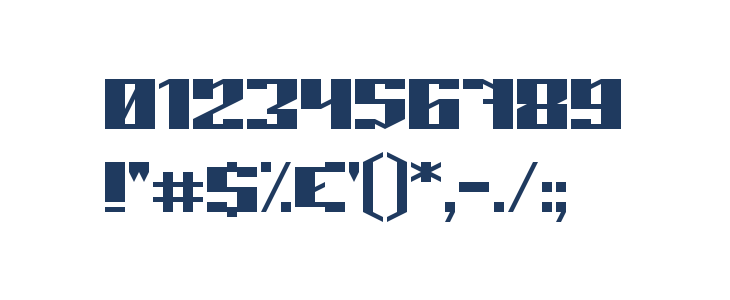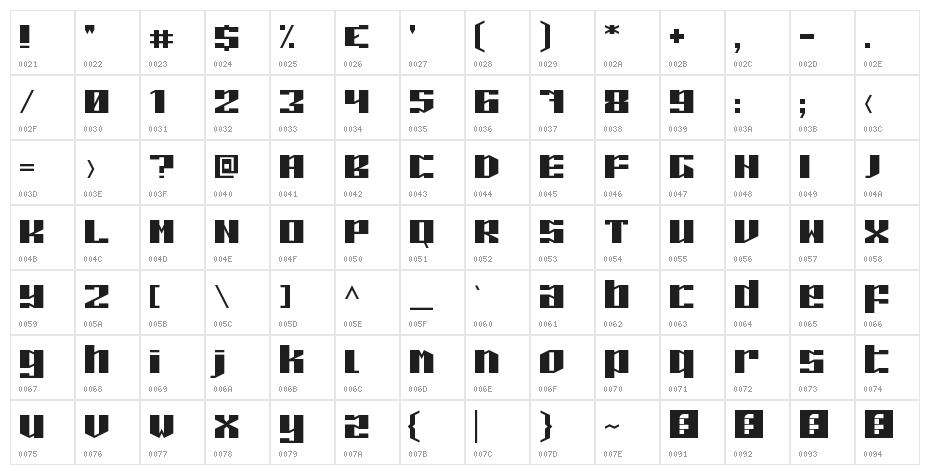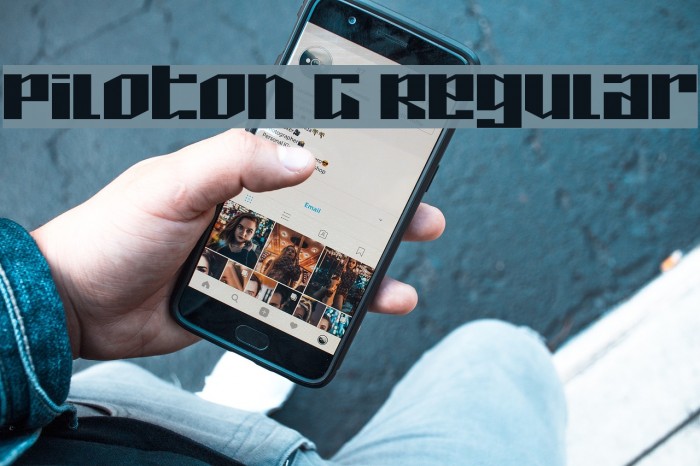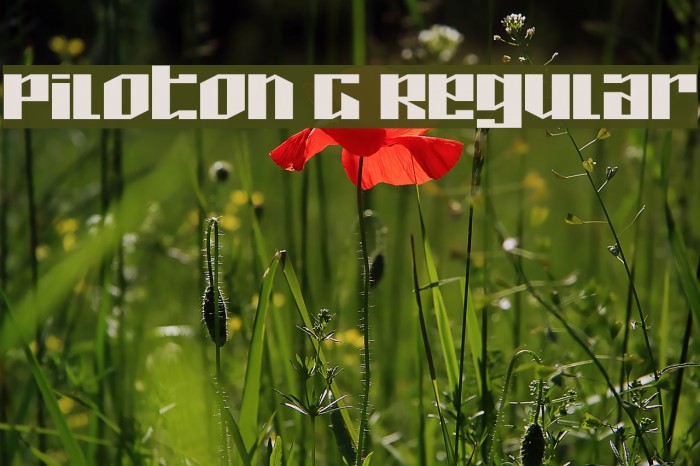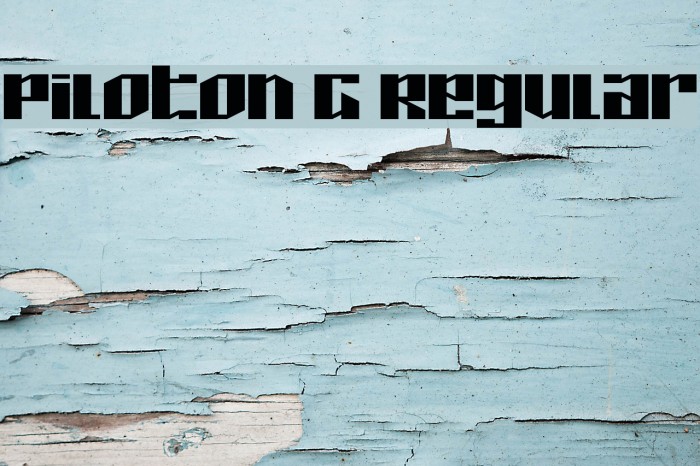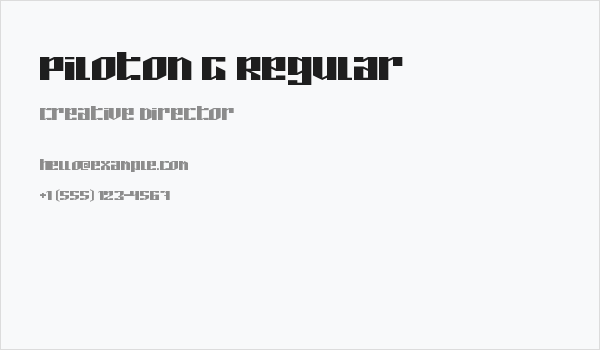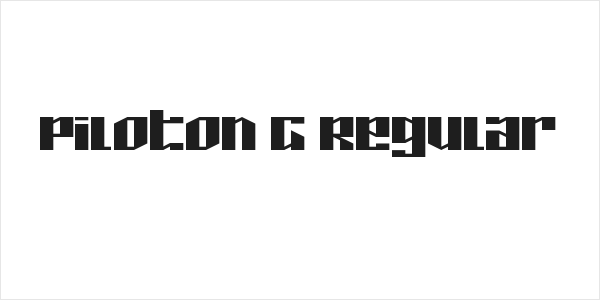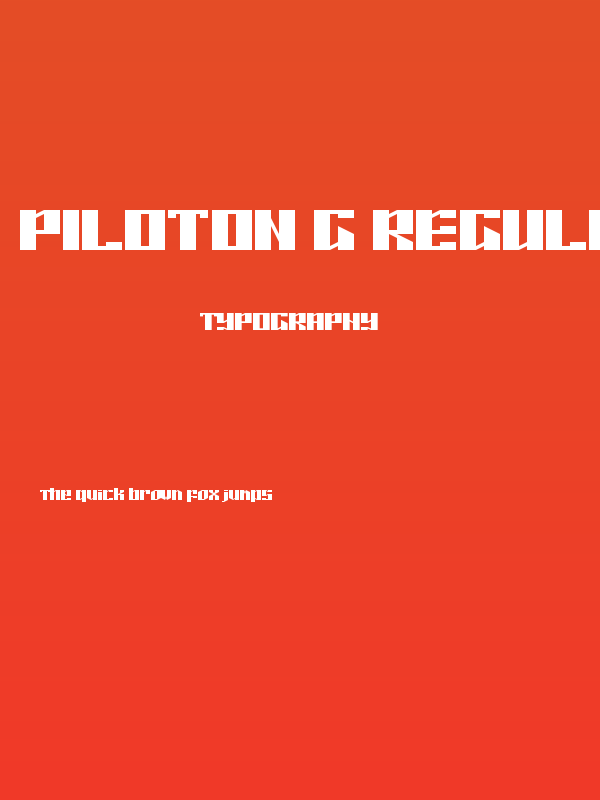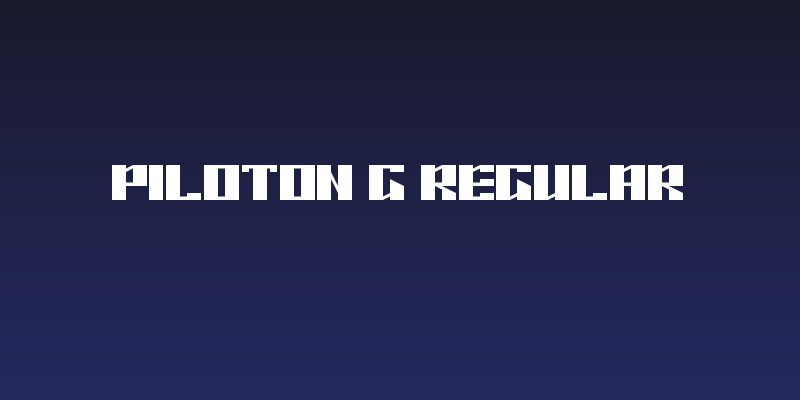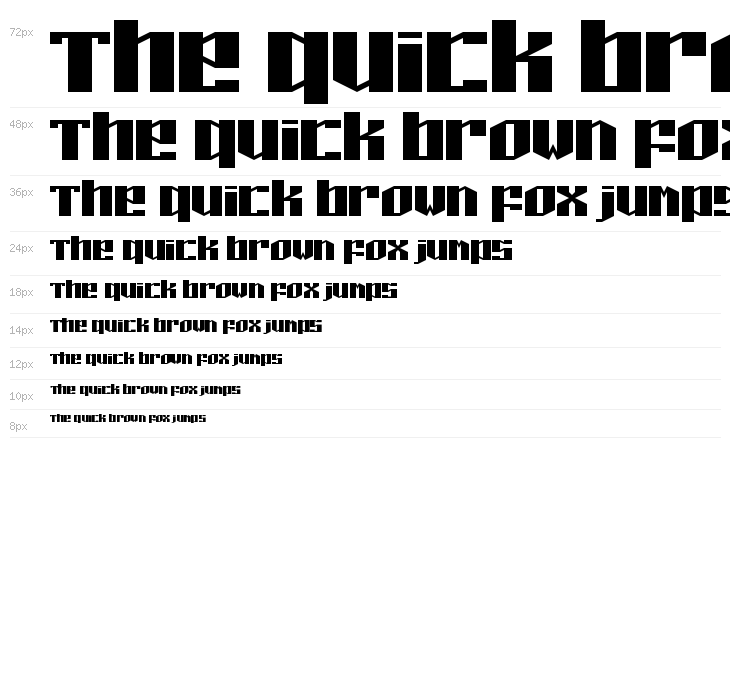
Piloton G Regular Font
Piloton G Regular Description
This font exhibits a bold and geometric style, characterized by its sharp angles and block-like structure. The uppercase letters are particularly striking, with a futuristic and industrial feel. The lowercase letters maintain the same boldness, ensuring consistency across different text cases. Numbers and special characters are designed with the same angular precision, making them stand out distinctly. The overall appearance is modern and assertive, suitable for making a strong visual impact.
| Proposed Projects | Ideal for projects requiring a strong visual impact, such as posters, logos, and branding materials. It can also be used in video game design or sci-fi themed projects. |